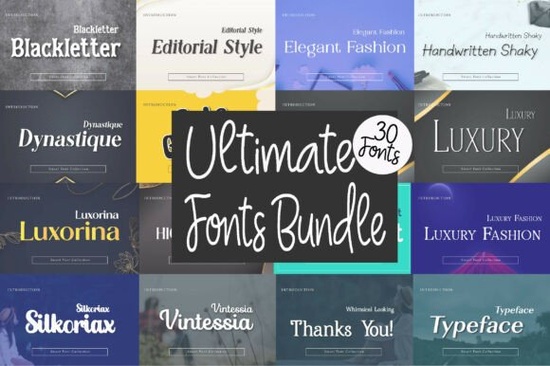
When starting a new design project, the most frustrating part isn't always the layout; it is often sourcing the right typography. Choosing a typeface requires balancing brand identity with readability. Having access to a diverse library saves significant hours spent searching through marketplaces. This efficiency is exactly what the Unlimited Mega Bundle Font offers to professionals and hobbyists alike. Instead of purchasing single files, you gain immediate access to a vast collection designed for versatility.
This specific tool is built for people who need reliability without spending a fortune on individual licenses. Whether you are creating social media graphics, printing merchandise for clients, or designing digital art, you need typefaces that stand out without compromising legibility. The bundle contains thirty different typefaces, covering everything from casual scripts to structured geometric sans-serifs. This variety means you can tackle multiple projects without leaving your account.
How Versatility Impacts Your Workflow
One of the biggest challenges designers face is finding a cohesive look when expanding a brand. If your logo uses a bold, modern type, your packaging might need something softer or more delicate. Trying to source compatible sets individually can be costly and time-consuming. This collection bridges that gap by providing a unified yet varied toolkit. It allows you to mix heavy headlines with light body text seamlessly.
For projects requiring a touch of class, such as wedding invitations or luxury packaging, you might look towards softer strokes. Exploring collections known for soft, graceful letterforms can provide inspiration for how you apply these fonts in real-world scenarios. By mixing these elegant touches with bolder elements from your bundle, you create visual hierarchy that guides the viewer's eye effectively.
Furthermore, having access to various weights and styles means your files remain consistent across platforms. You can upload your designs to print-on-demand sites like Teespring or Redbubble knowing your fonts won't break. This stability is crucial for sellers who need their shop inventory to look professional immediately upon launch.
Technical Specs and File Compatibility
In this ecosystem, you might encounter distinct, character-driven designs. Similar bold, editorial-style faces found in specialized libraries, like the Nickota Font, demonstrate the level of detail included in high-end collections. Such typefaces often feature sharp edges and dramatic contrasts that catch attention quickly.
Integrating Quality Typefaces into Projects
To make the most of this purchase, try organizing your downloads into folders before opening any software. Group fonts by weight or style headlines versus body text to save time during the actual creation phase. If you are a developer, remember that web usage often requires web fonts, so verify if you need to convert the desktop versions yourself.
Here are some common examples of the styles you may encounter:
- A versatile sans-serif similar to Abril Fatface.
- Clean geometric shapes resembling Poppins.
- Elegant scripts comparable to Caveat.
While specific names vary, the goal remains the same: achieving a polished finish. Using these assets correctly can elevate your portfolio significantly. You avoid the messy look of default system fonts and present a customized identity to your audience.
Maximizing Value from Your Purchase
To ensure you are getting the full benefit of your investment, take time to test each font in a mock-up scenario. Try kerning adjustments and spacing tweaks to understand how the glyphs interact. This practice builds muscle memory for future projects. It also prevents errors where letters overlap incorrectly on thin screens or printed materials.
Remember, typography is communication. A poor choice can obscure your message, while a thoughtful choice reinforces it. With thirty options at your disposal, you have the flexibility to experiment until you find the perfect match.
- Create a mood board to plan where headlines versus body text are needed.